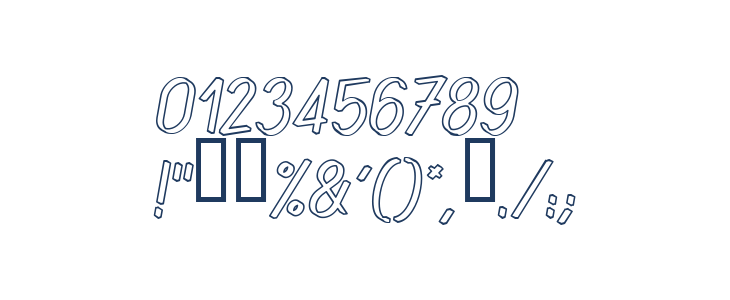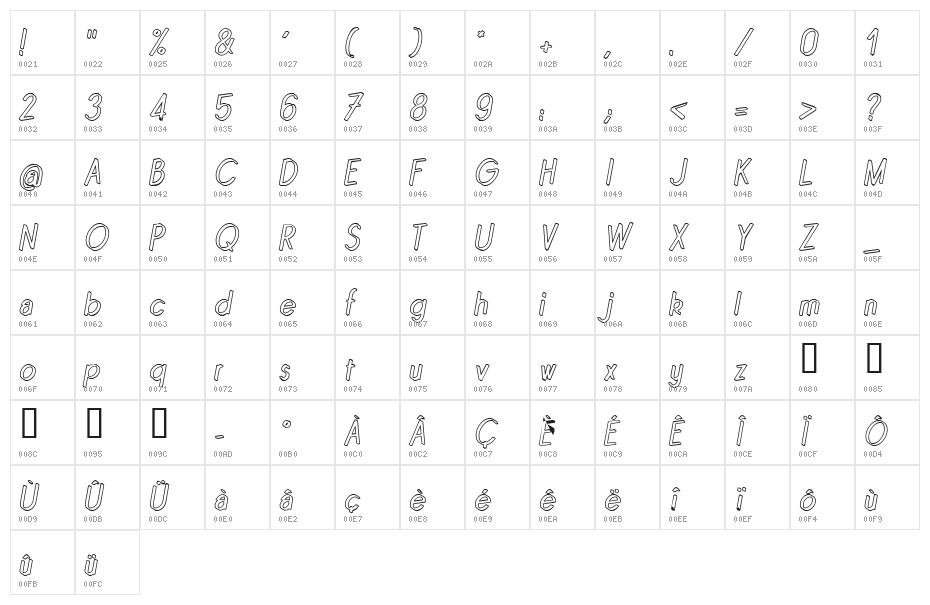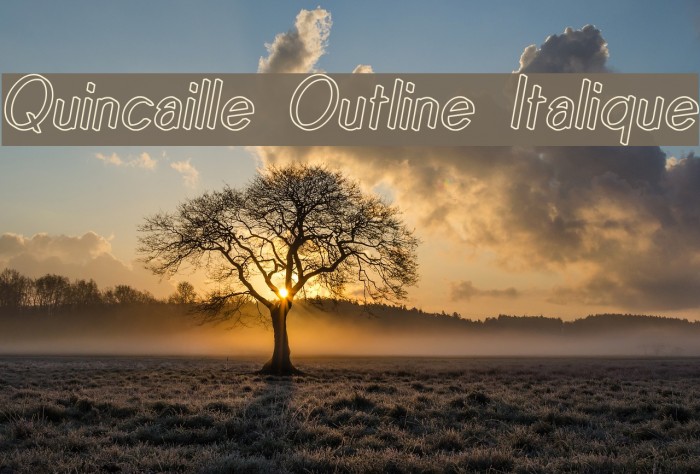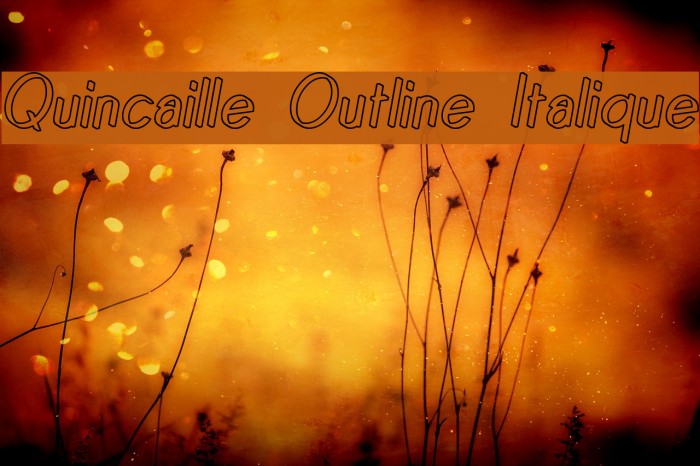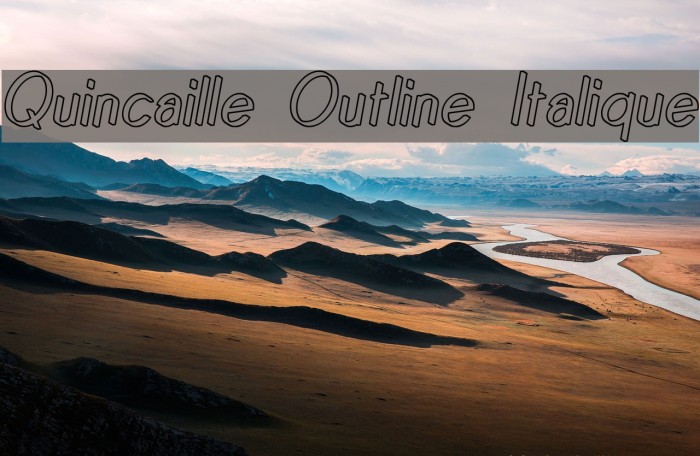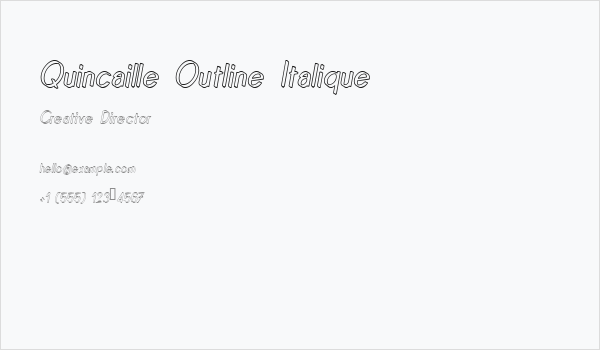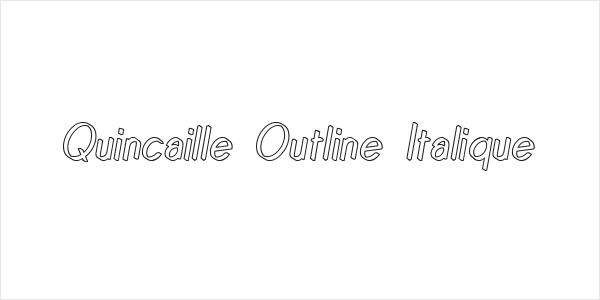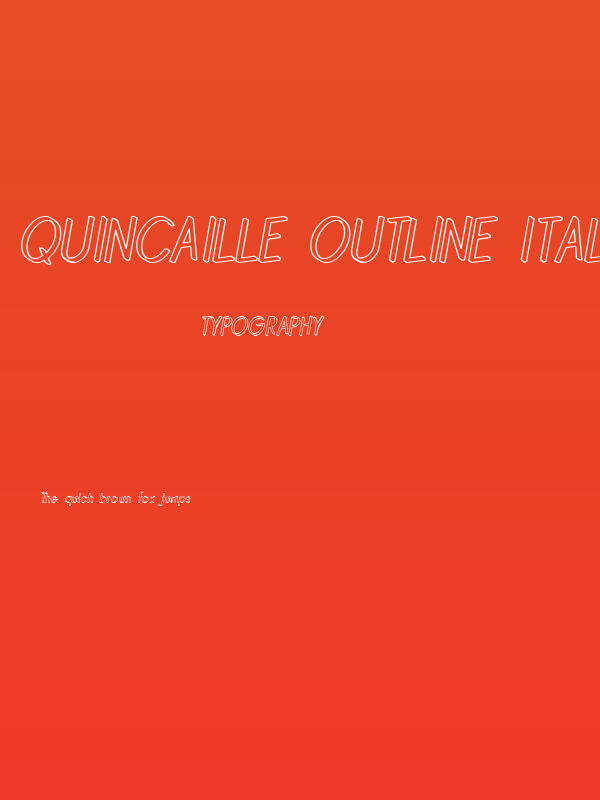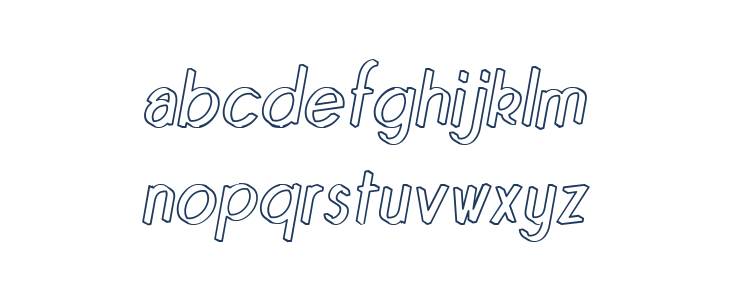
Quincaille Outline Italique Font
Quincaille Outline Italique Description
This font features a distinctive outline style with a slight italic slant, giving it a dynamic and modern appearance. The characters are well-defined with clean lines, creating a sense of movement and energy. The uppercase and lowercase letters maintain a consistent style, with rounded edges that soften the overall look. The numerals and special characters are equally well-crafted, ensuring versatility across various applications. This font's unique outline design makes it stand out, while its italic nature adds a touch of elegance and sophistication.
| Proposed Projects | Ideal for branding, posters, headlines, and creative design projects where a modern and stylish look is desired. |